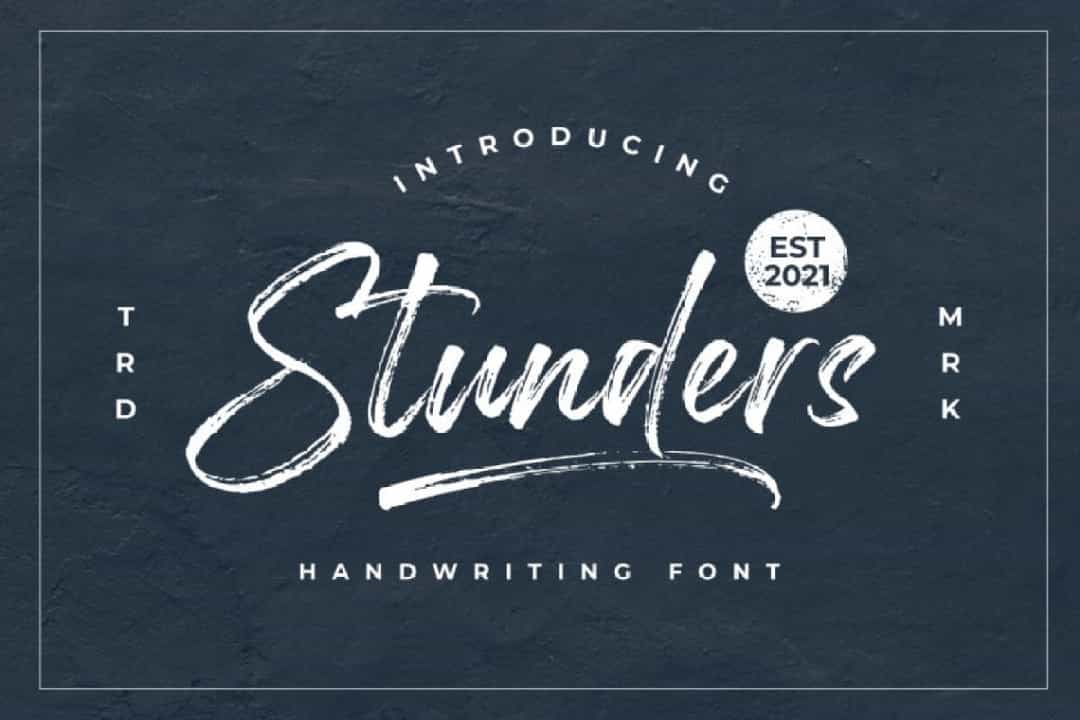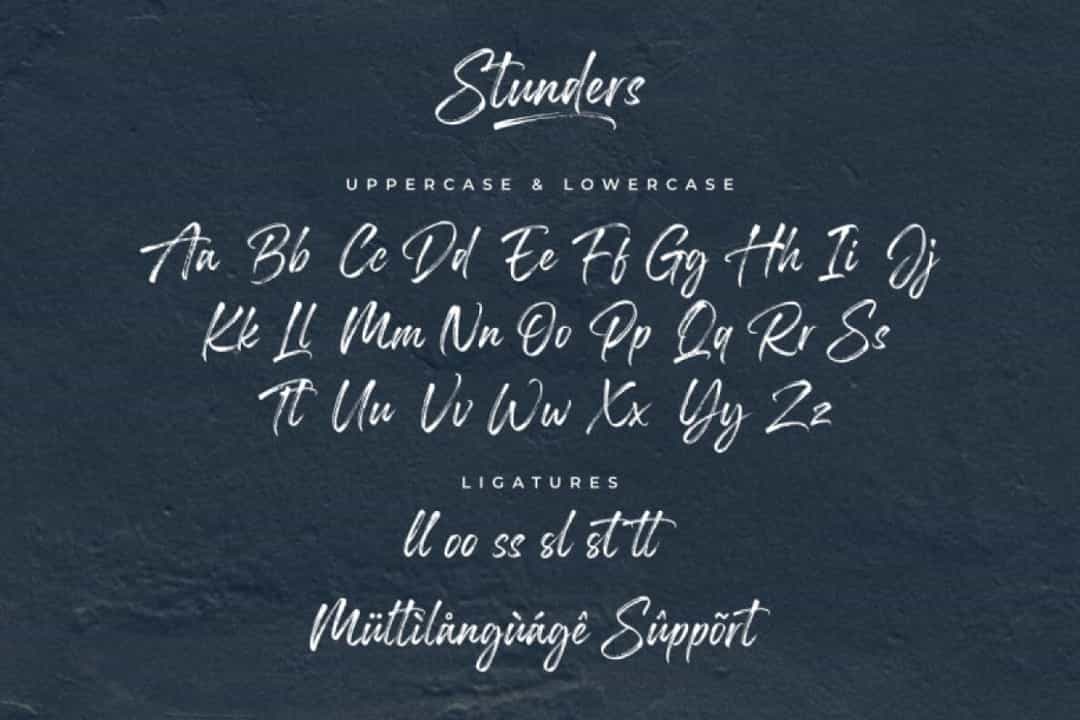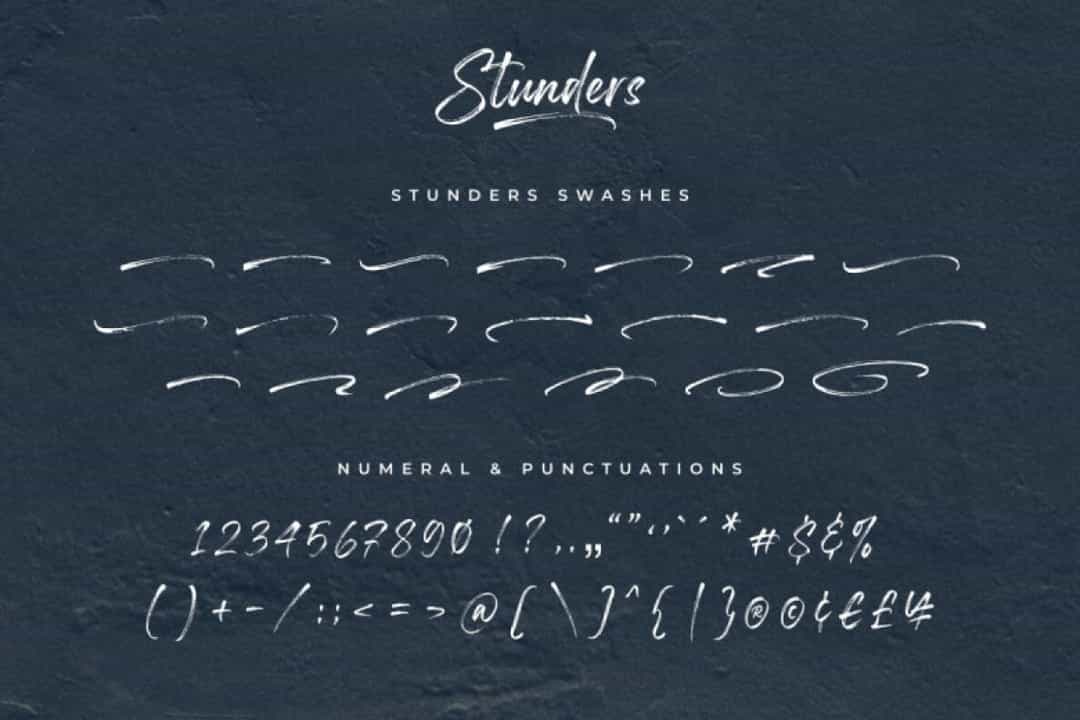
Stunders Font is an original brush script type designed by Ghuroba Studio with fast writing that stands out. Perfect for logos, branding packages, products cards, quotes, and many other uses; Stunders Font can become part of any stylish outfit!